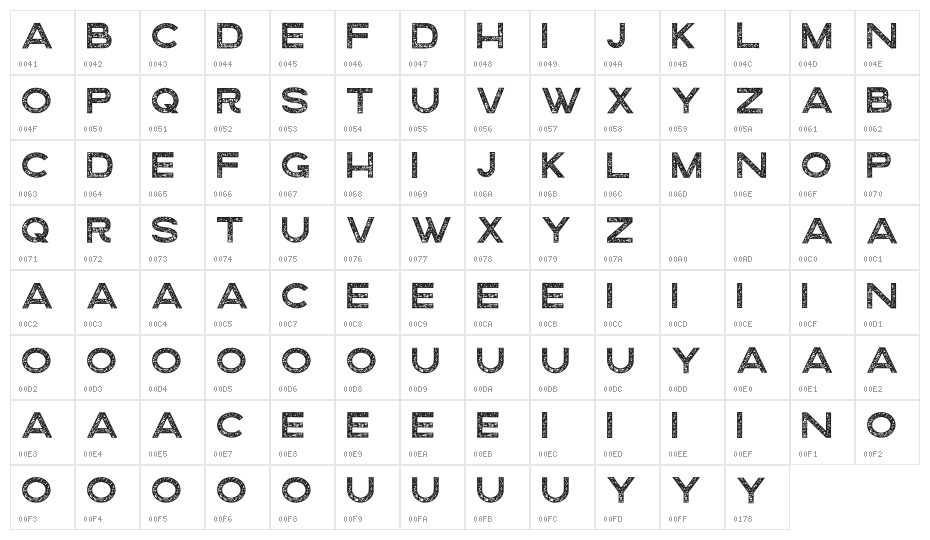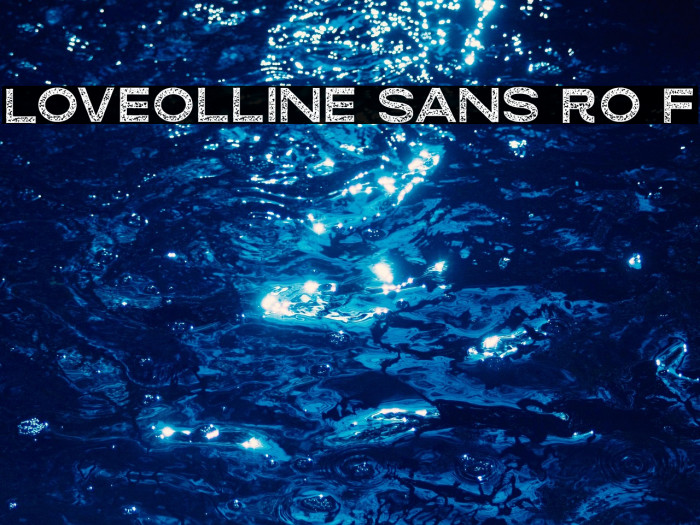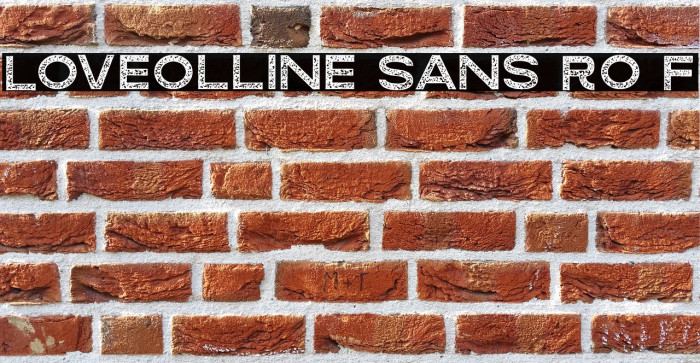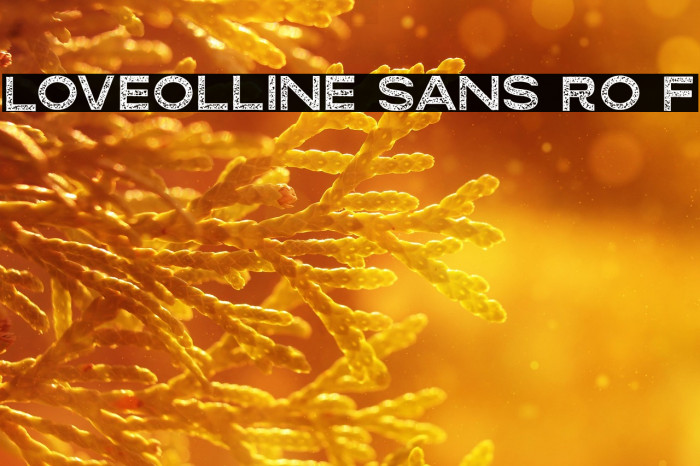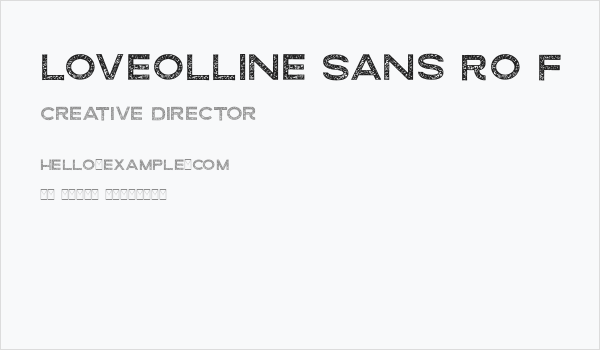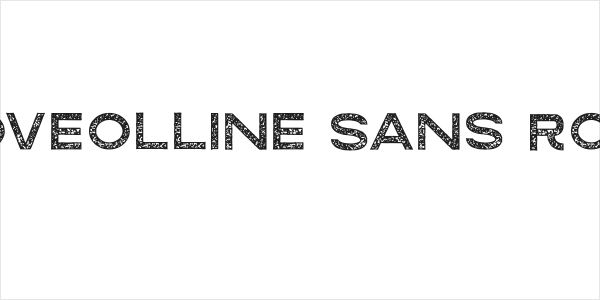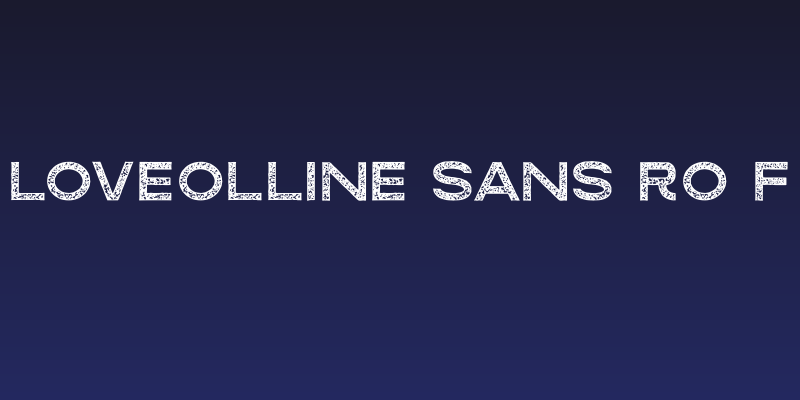
Loveolline Sans Ro F Font
Loveolline Sans Ro F Description
This font features a bold, sans-serif style with a unique textured pattern filling each character, giving it a distinctive and eye-catching appearance. The uppercase letters are uniformly designed with straight lines and sharp angles, maintaining a modern and clean aesthetic. The texture within the letters adds a playful and artistic touch, making it suitable for creative projects. The font's structure is consistent, with even stroke widths and balanced proportions, ensuring readability while adding visual interest.
| Proposed Projects | Ideal for branding, posters, and creative design projects where a bold statement is needed. |